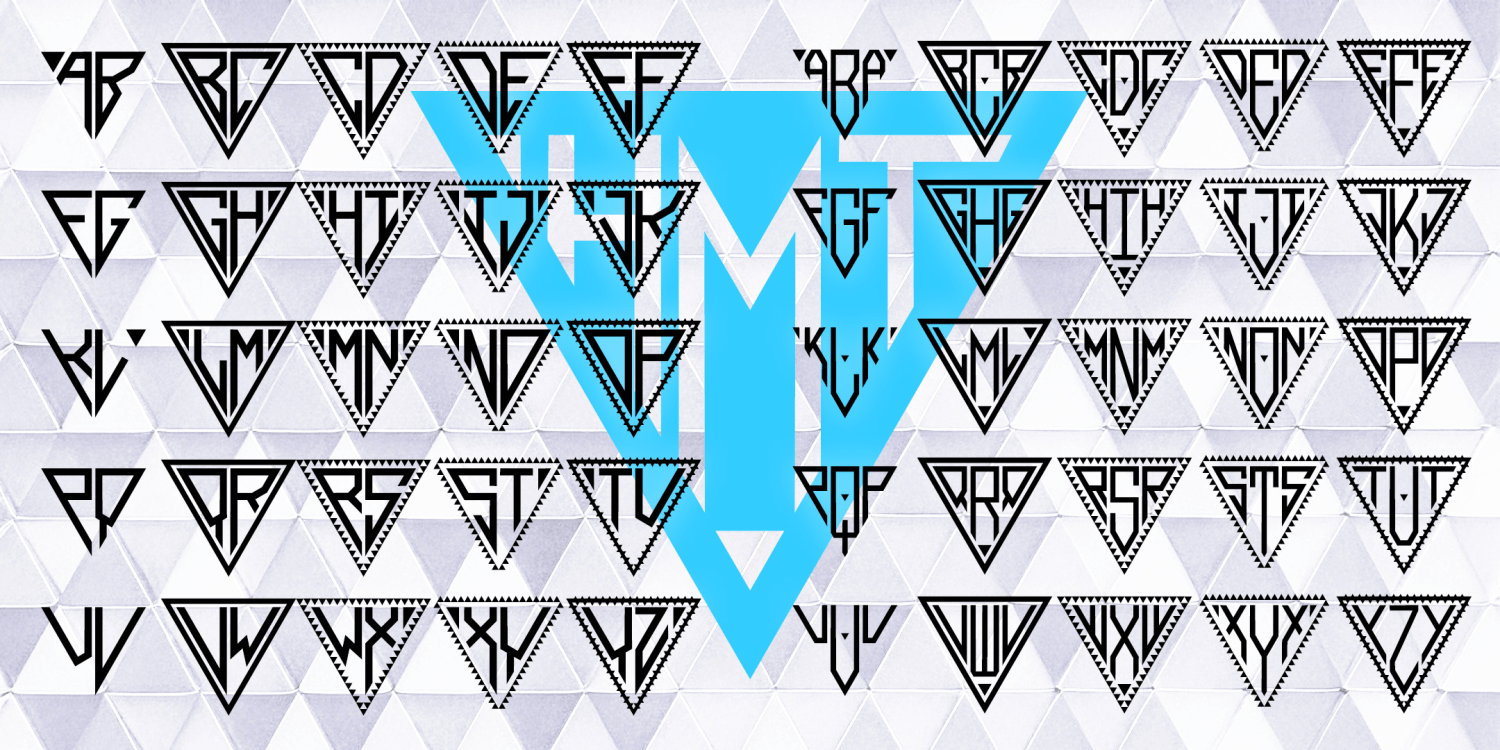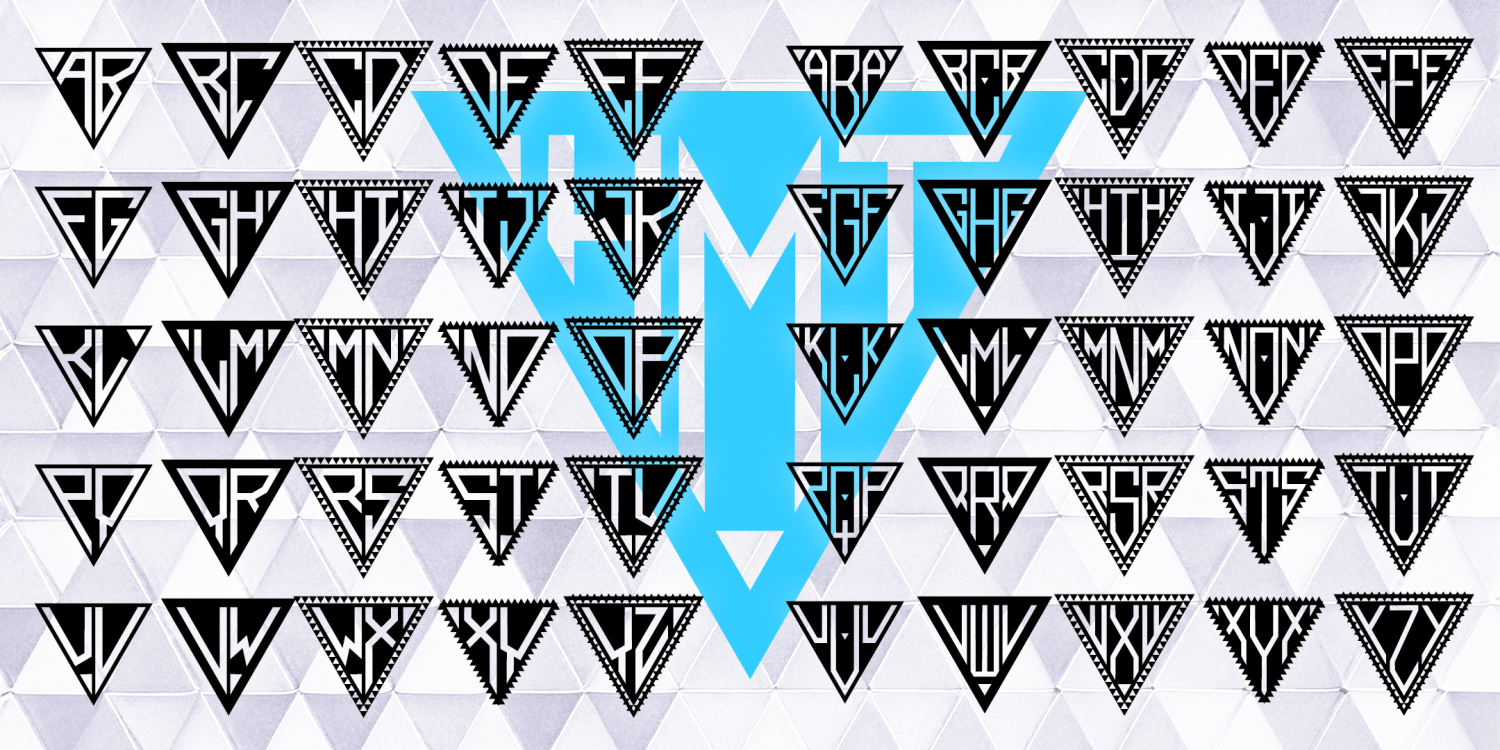
Triangle Monograms
TRIANGLE MONOGRAMS is a et of 4 fonts that let you create custom 2- or 3-letter monograms within a dynamic triangle shape. Choose a black or white background and a decorative frame for more personalization.